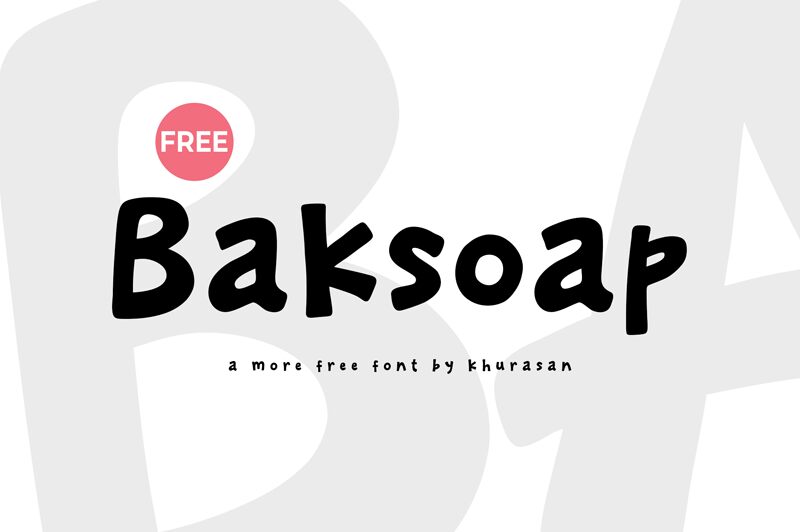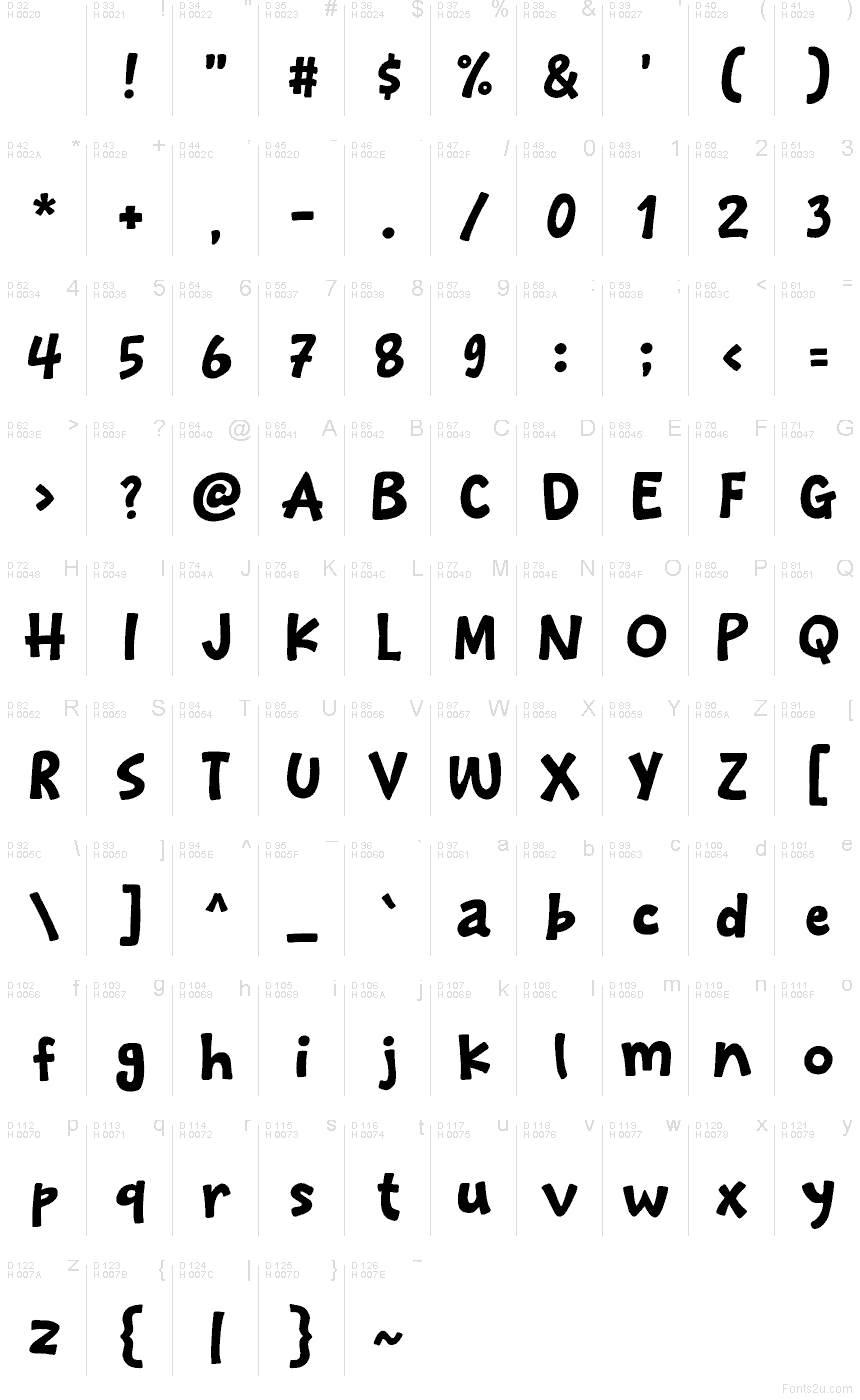
Baksoap by Khurasan is a free cartoon display font with stout, irregular letters and a lively hand-drawn silhouette. Rounded corners, wavering stroke widths, and slightly skewed forms keep the lettering cheerfully improvised.
Its friendly bulk suits children's packaging, yet the same loose construction gives music posters a scrappy comic edge. It also fits snack branding and playful event graphics when the lettering becomes part of the artwork. The exaggerated shapes are at home with comedy, cartoons, and lighthearted entertainment.